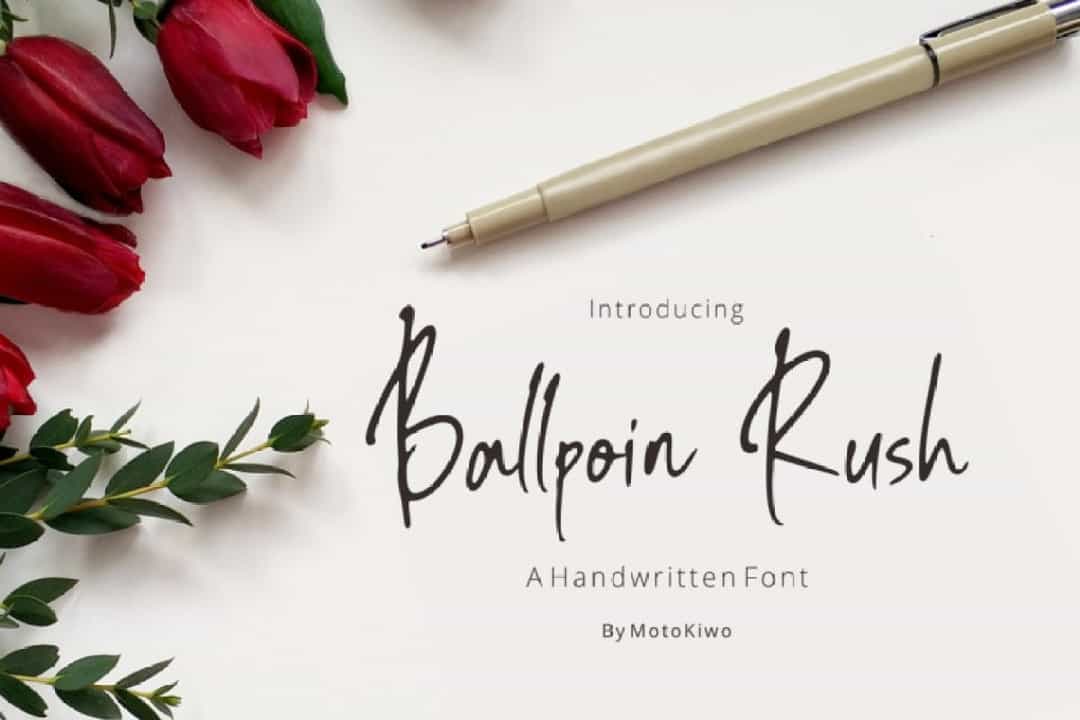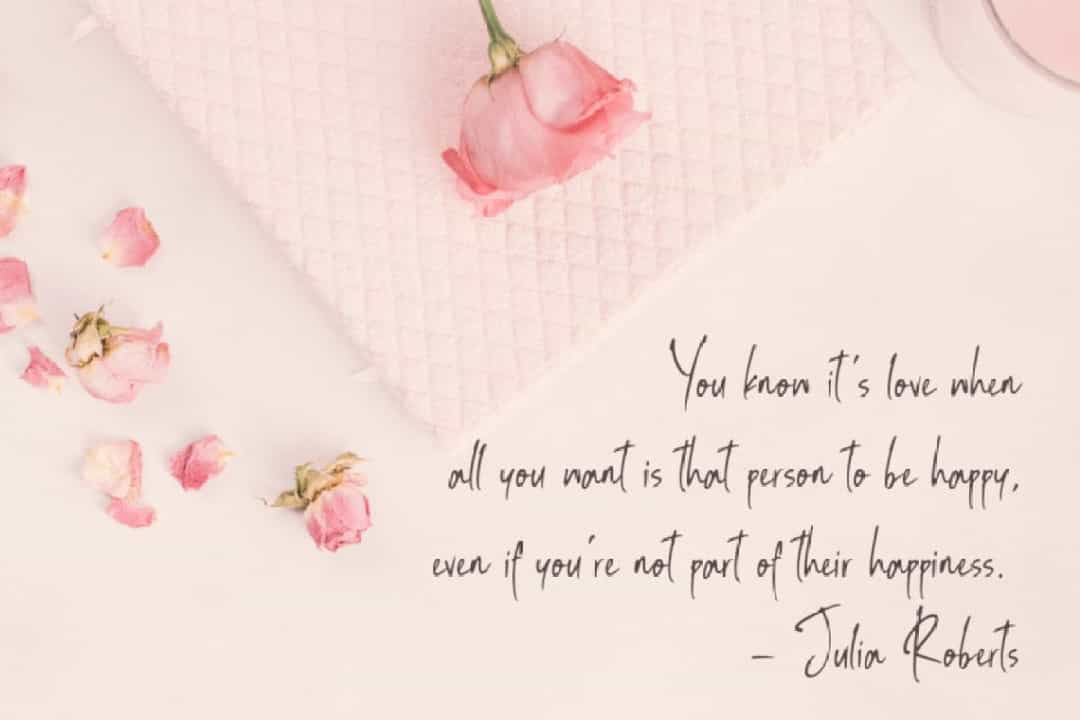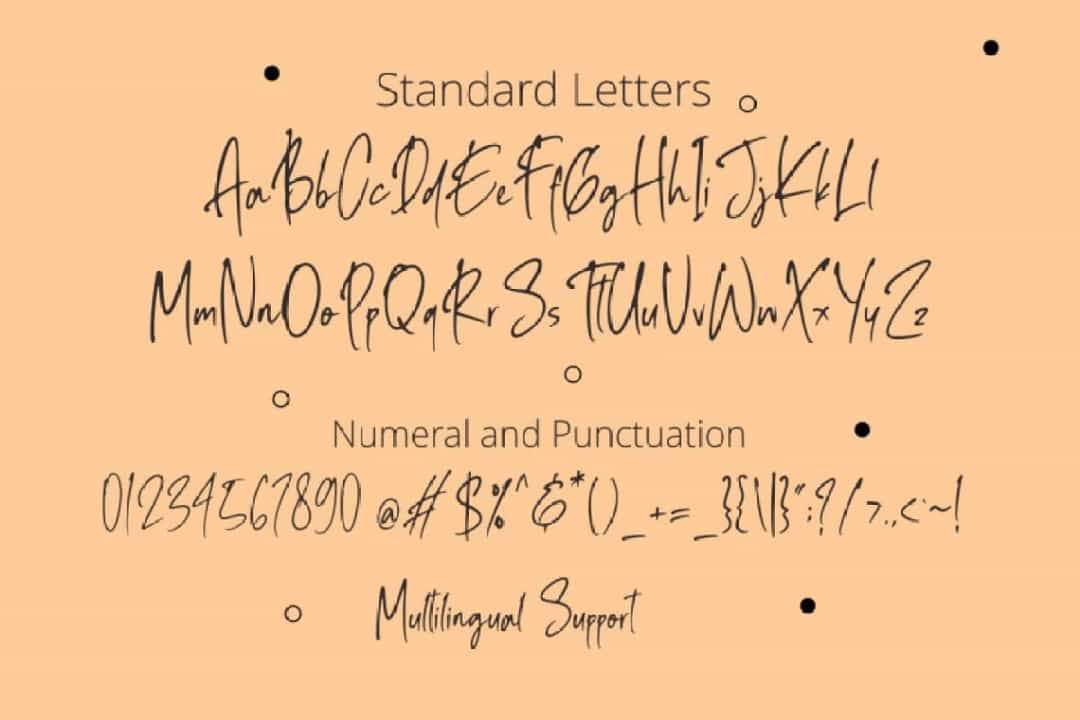
Ballpoint Rush is a beautiful calligraphic font in handwritten style that is drawn with a pen. The font is simple to write with any pen; appropriate for use in branding projects, everyday notes, signature text, signature forms, signature sheets and so on.